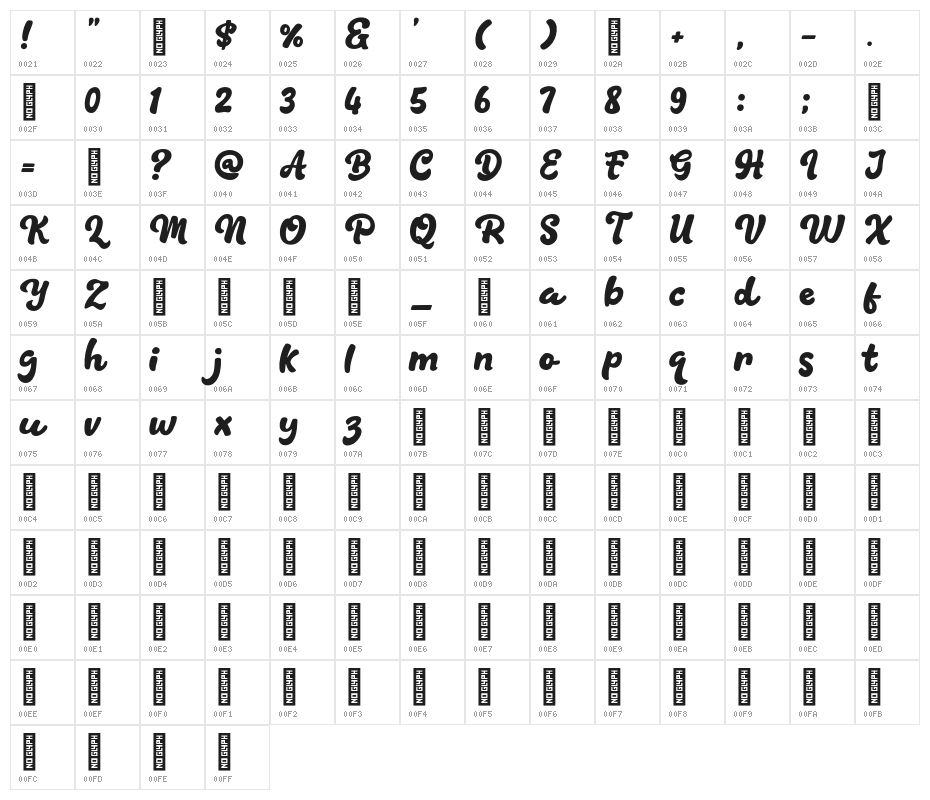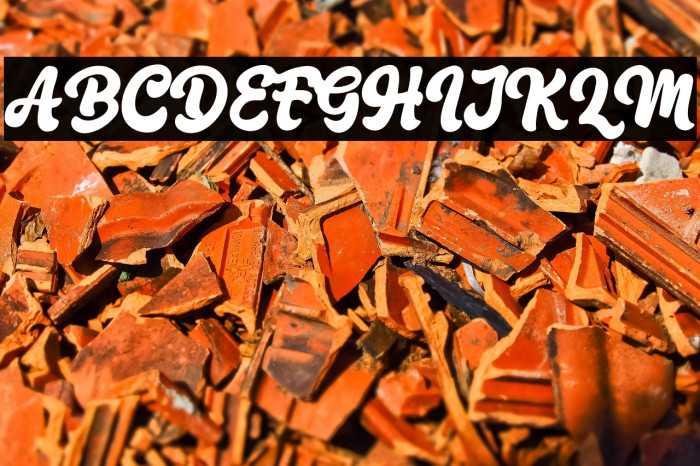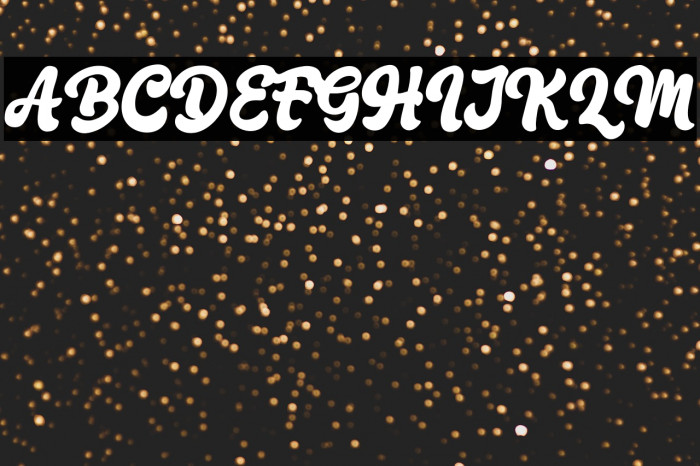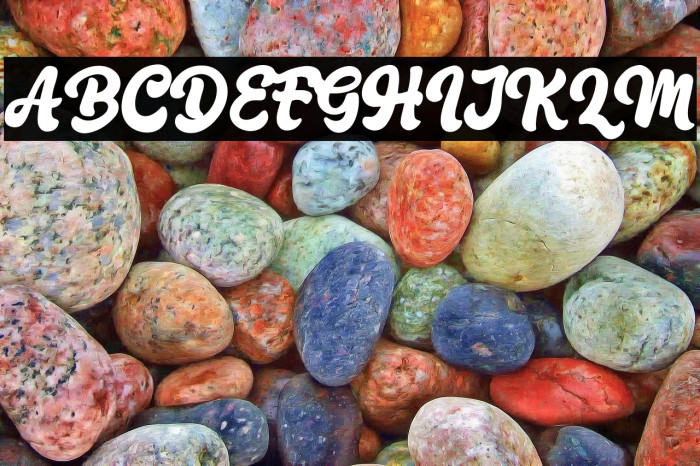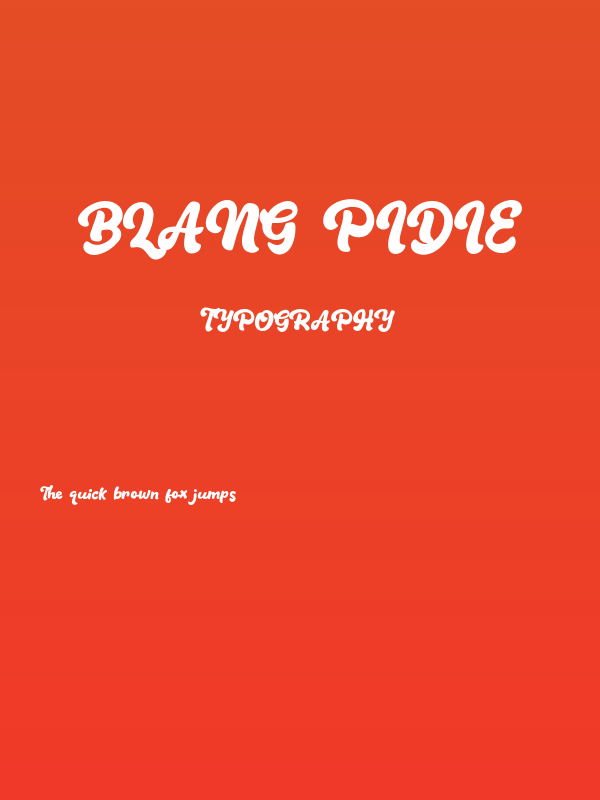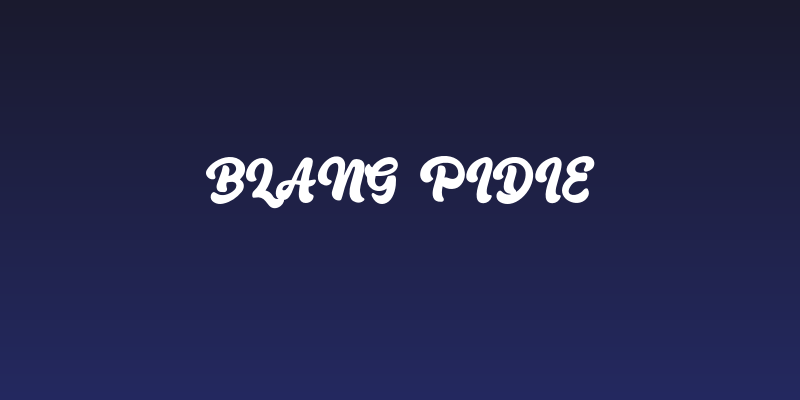
Blang Pidie Font
Blang Pidie Description
This font features a bold and expressive script style with a playful and dynamic appearance. The letters are interconnected, creating a fluid and continuous flow, reminiscent of handwriting. The uppercase letters are slightly more structured, while the lowercase letters exhibit a more casual and relaxed form. The numerals and special characters maintain the same lively and bold characteristics, ensuring consistency across all glyphs. The overall design is both eye-catching and approachable, making it suitable for a variety of creative applications.
| Proposed Projects | Ideal for greeting cards, invitations, branding, and playful advertising campaigns. |